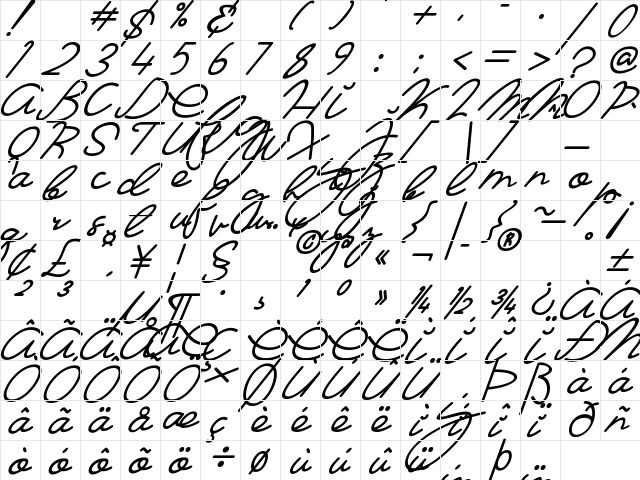
Ma Fille Slant Italic
| Designer | Aldedesign 2018 |
Design Context for Ma Fille Slant Typeface
Ma Fille Slant is a composed and adaptable typeface that performs quietly and consistently across a wide range of design contexts. The dynamic lean of this cut emphasises speed and emphasis in any layout.
Pro Tip: Use Ma Fille Slant for emphasis, pull quotes, and subheadings where its slanted energy can add rhythm to the layout.